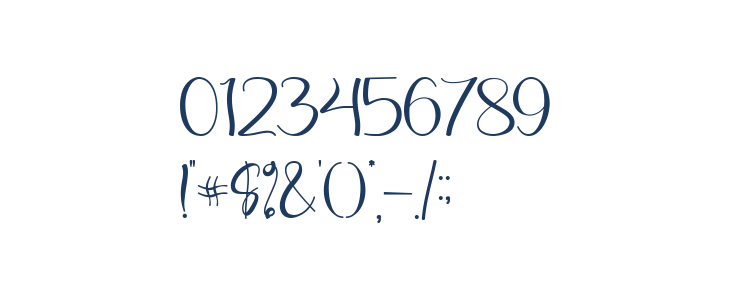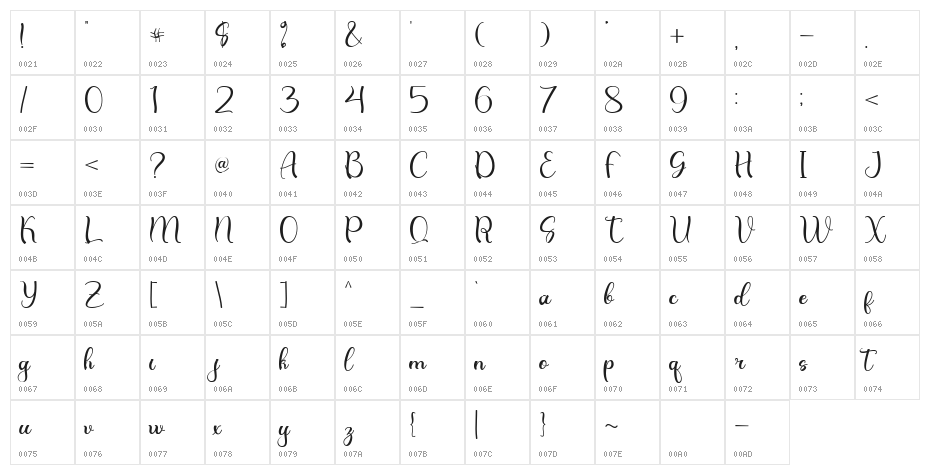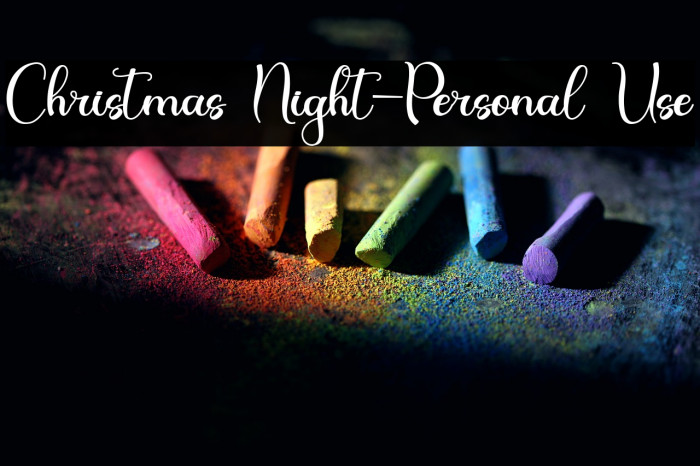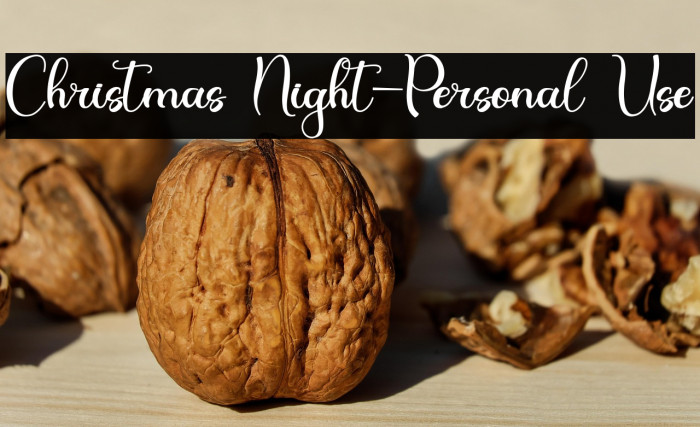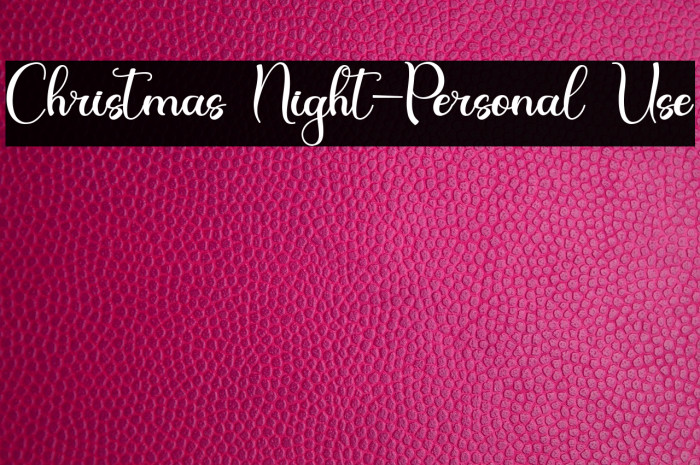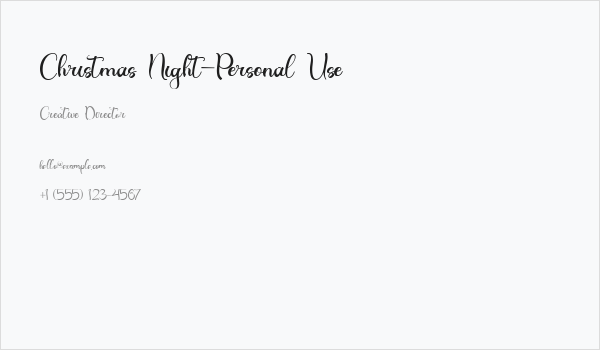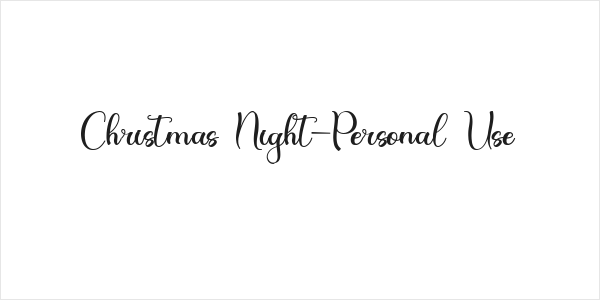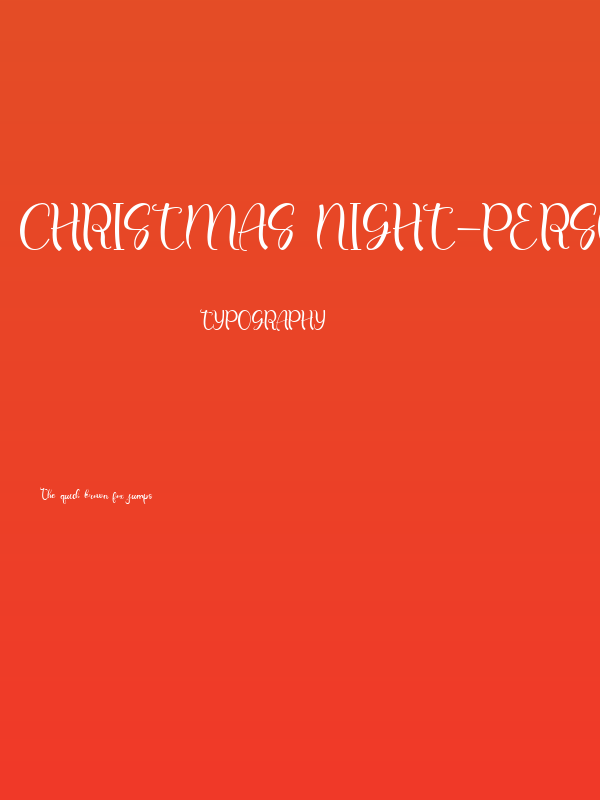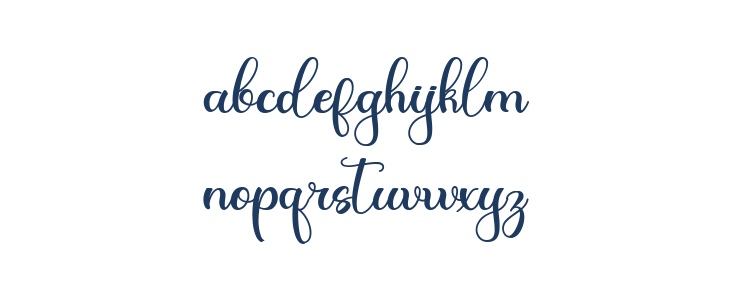
Christmas Night-Personal Use Font
Christmas Night-Personal Use Description
This font exudes a festive and elegant charm, perfect for holiday-themed projects. The uppercase letters are characterized by their flowing, cursive style with decorative swirls, adding a touch of sophistication and whimsy. The lowercase letters maintain a consistent cursive style, offering a seamless blend with the uppercase. The numerals are bold and slightly whimsical, matching the playful yet elegant theme of the font. Special characters are thoughtfully designed to complement the overall aesthetic, making this font versatile for various creative applications. Its unique style captures the essence of celebration and joy, making it ideal for festive occasions.
| Proposed Projects | Ideal for holiday cards, festive invitations, seasonal branding, and decorative signage. |